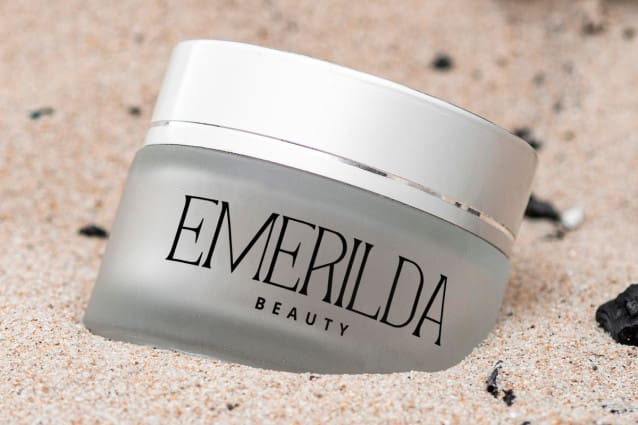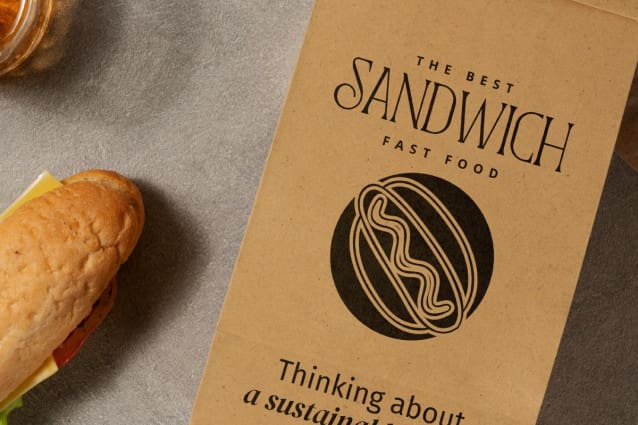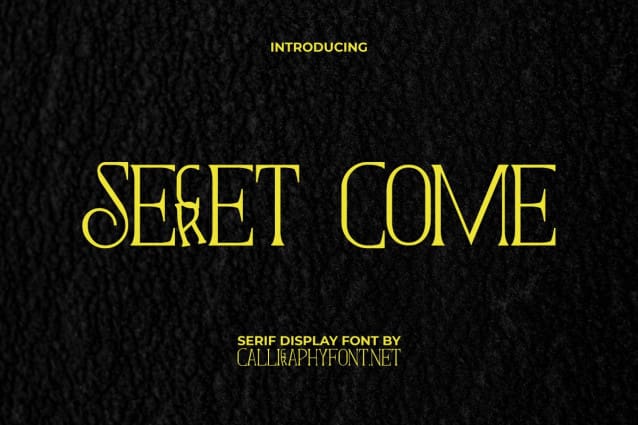
Secret Come Font
Secret Come Font is a uniquely classic dark serif display font with mysterious overtones. The clean fonts connect with an art deco vibe giving it a modern character with a pleasant rhythm, making it awesome for any project, such as apps, billboard, blogs, branding, brochure, cards, cover, envelope design, flyer, invitation, label design, large type and logos, menu, packaging, poster, product brands, screen print, signage, social media posts, stationery, stickers, thank you card, title, wrap design, website, and many more!
Secret Come Font is an original vintage serif display font that brings a unique visual to any industry, such as accessories, advertisement, apparel, architect, automotive, botanist, café, content creator, event organizer, fast food, furniture, graphic design, handicraft, homeware, interior design, musician, perfume, photography, printing, publishing, retro restaurant, skincare, and anything that is most important requires a unique retro touch.
Secret Come Font comes with a full set of ALL CAPS for Uppercase and Lowercase Basic Characters, Number, a large range of Punctuation, Symbol and Ligature. It’s a versatile font that works well on both large and small size scales. The font has also been equipped with multilingual support that is ready to use either on Windows or Mac machines with a simple installation. It’s tested to work well in the Adobe Apps (Illustrator, Adobe InDesign, Adobe Photoshop) CorelDraw, and others. PUA Encode Characters means you can access all the characters easily – Fully accessible without additional design software.